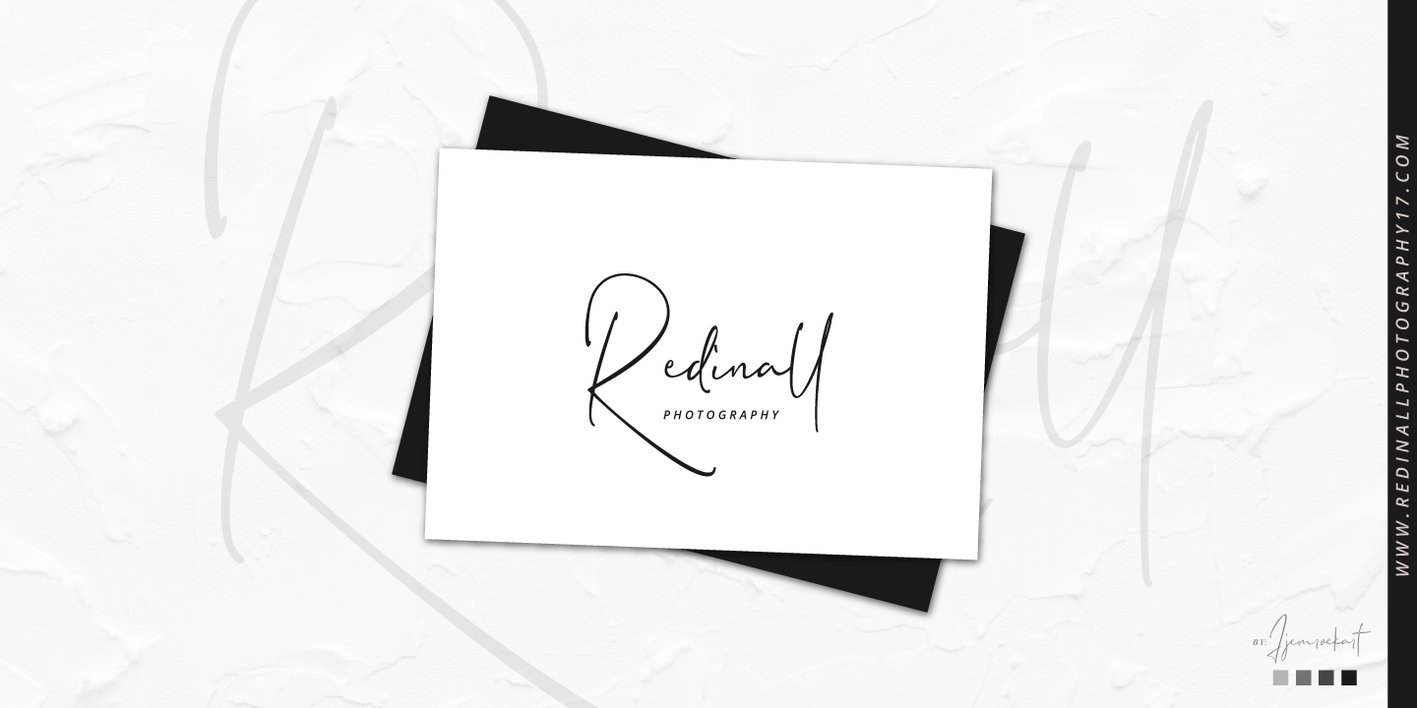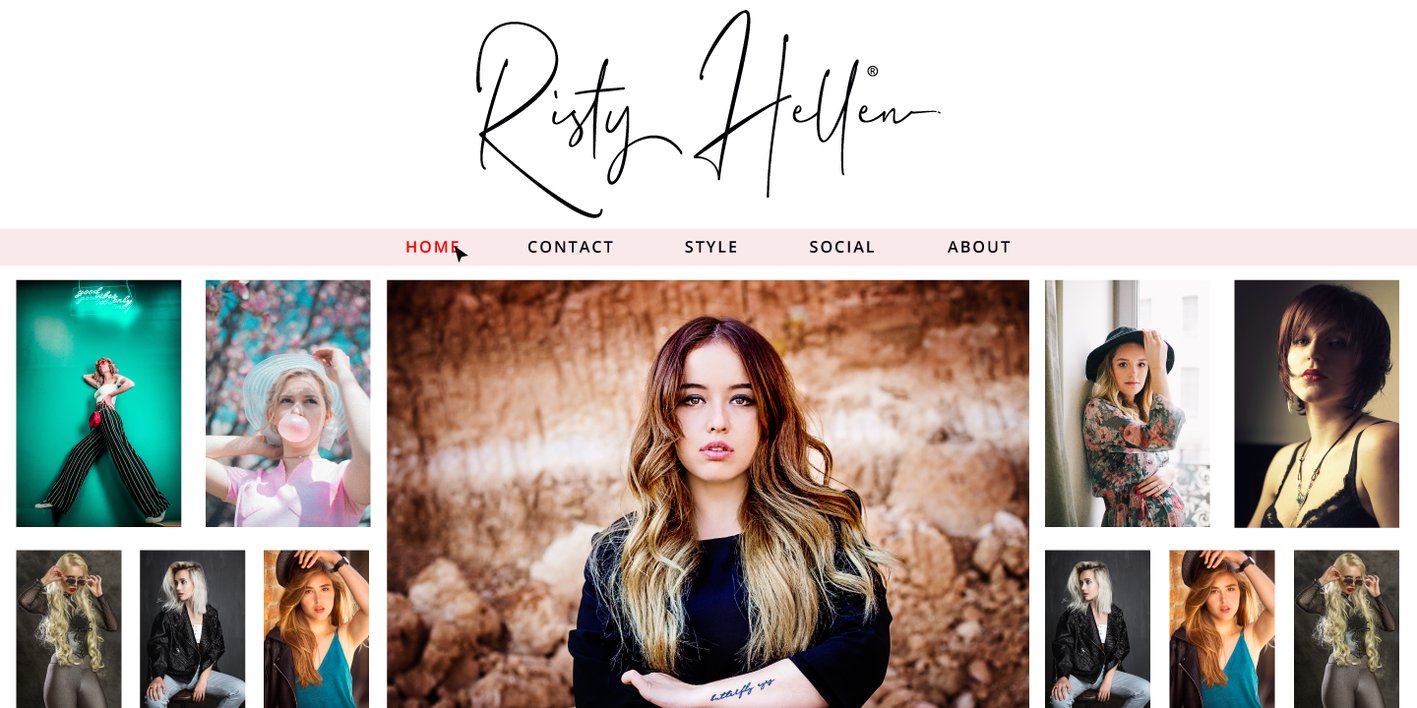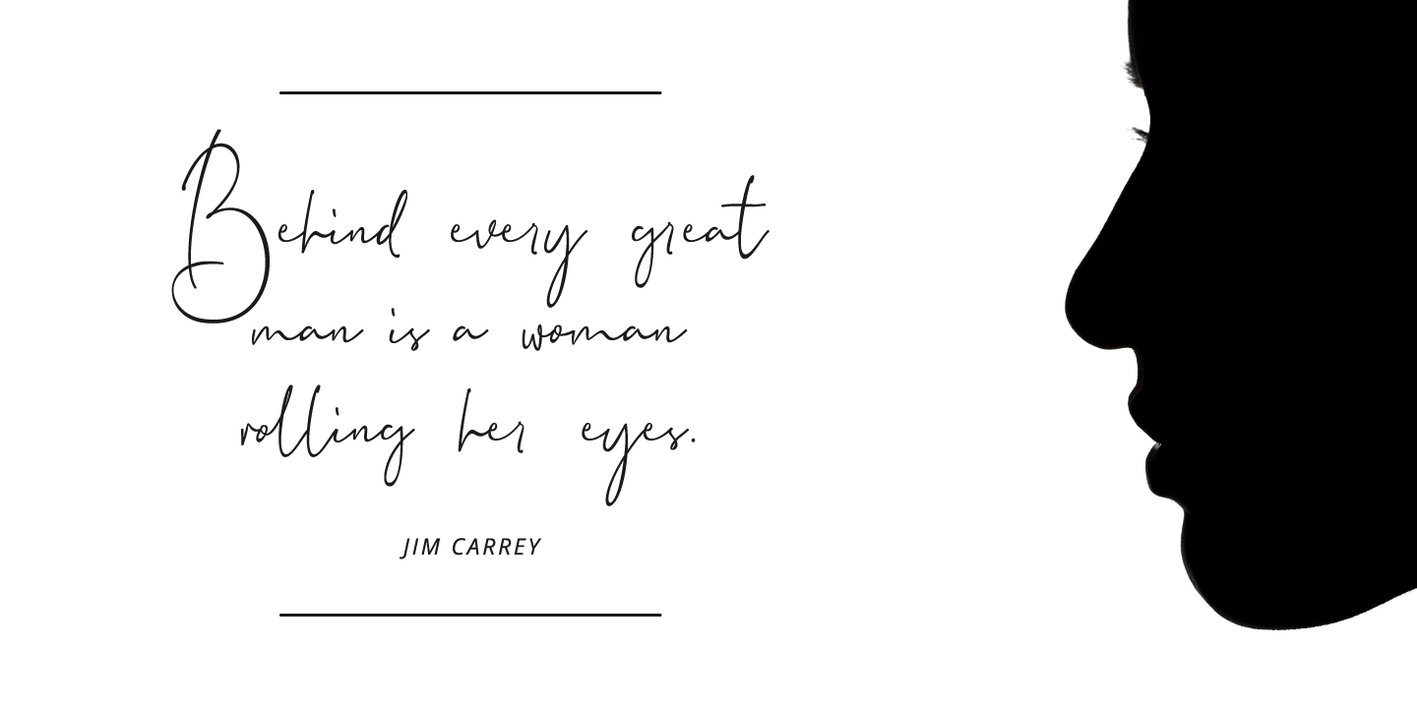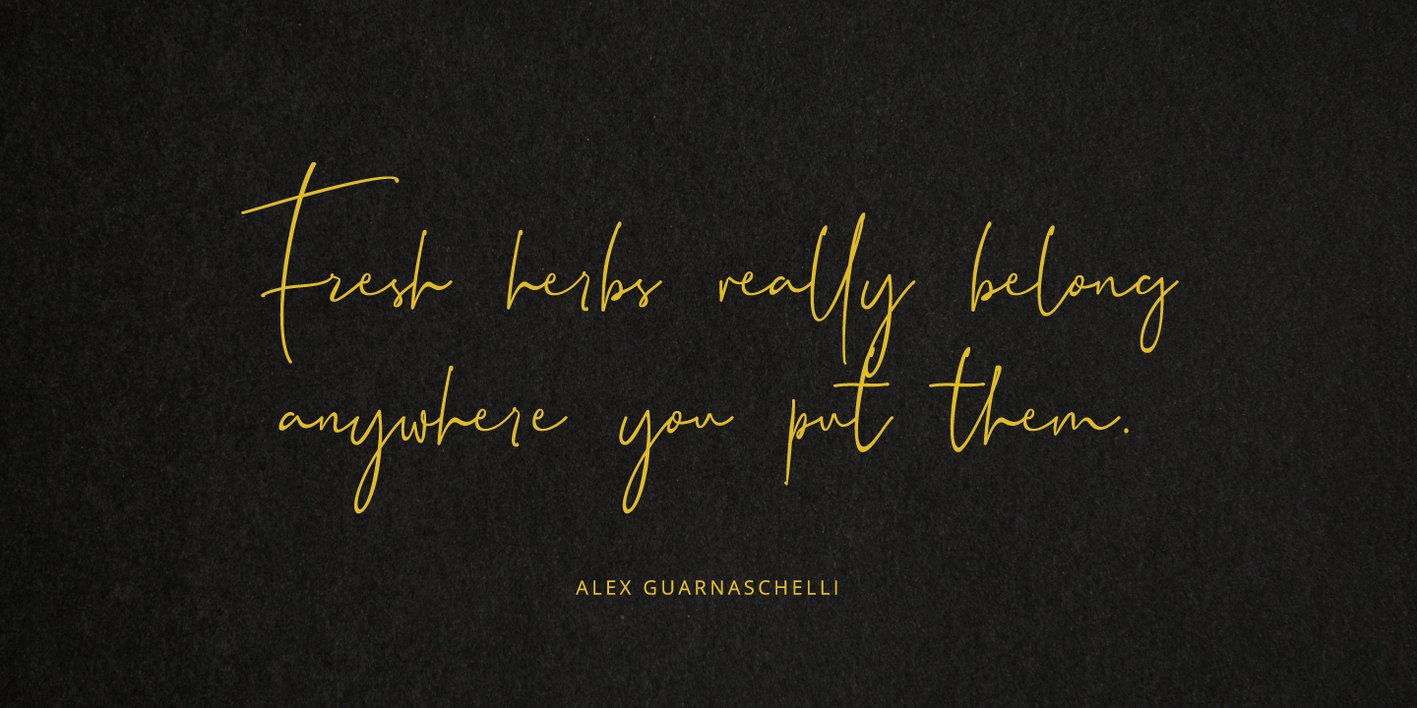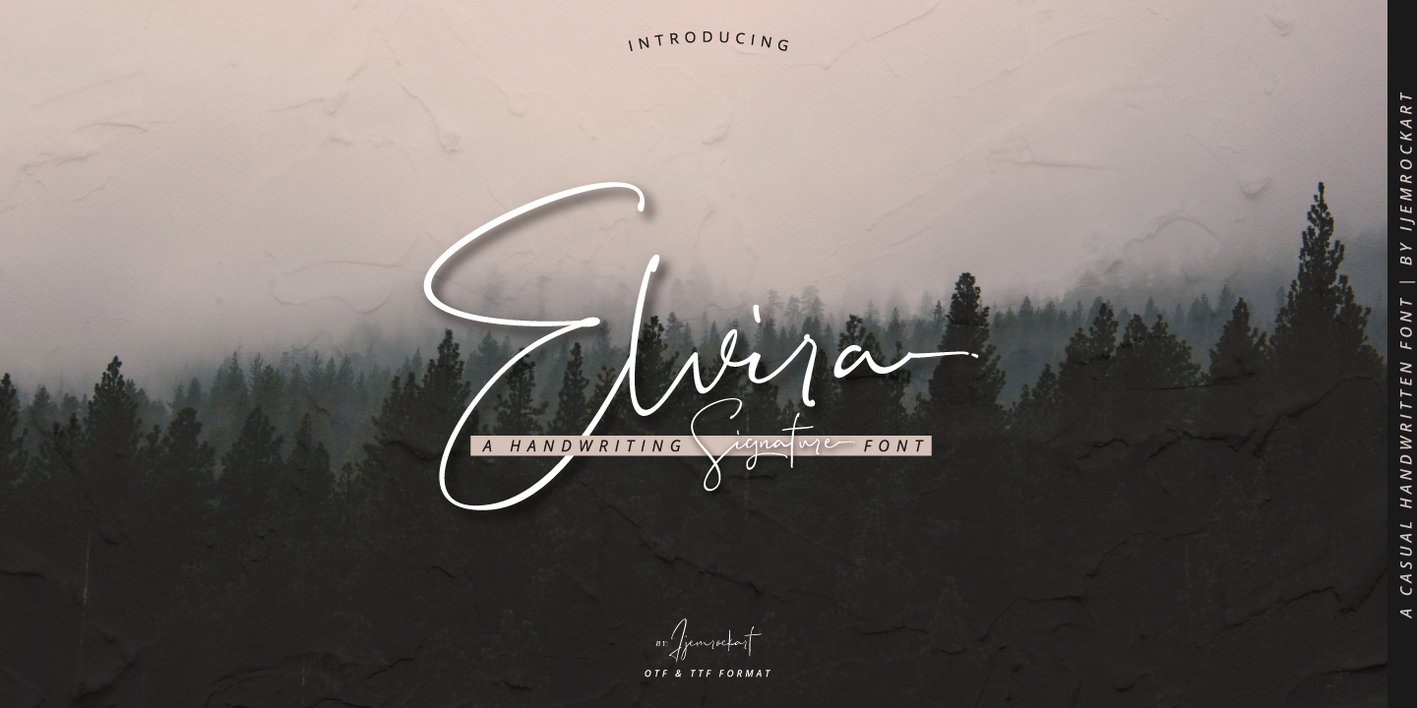
Elvira Font
Elvira is a modern calligraphy font with a current handwriting style. This font is perfect for branding, wedding invitations, magazines, mugs, business cards, quotes, posters, and more. Elvira is equipped with 359 glyphs, so you will be able to choose letters according to your preferences. With so many variations and options for each letter, you can adjust your design choices. To access various OpenType features you can use applications such as Adobe Photoshop CS / Adobe Photoshop CC, Adobe Illustrator CS / Adobe Illustrator CC, Adobe Indesign and Corel Draw. If you don't have a program that supports OpenType, you can access all alternative glyphs using Font Book (Mac) or Character Map (Windows) If you have questions, don't hesitate to